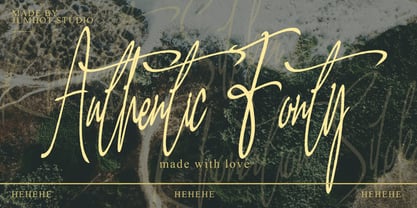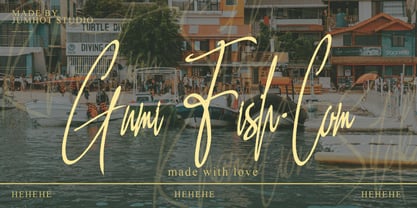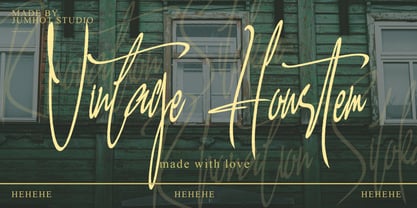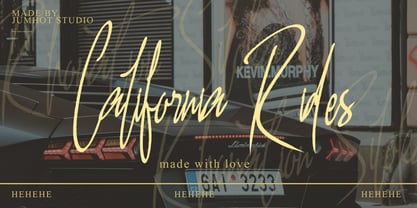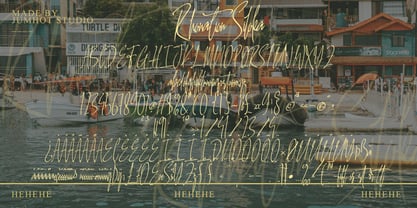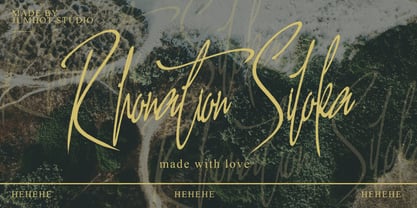
Rhonation Syloka
by Pineungtype misinklab
The Rhonation Syloka Font Family was designed by Beni Saswita and published by Pineungtype misinklab. Rhonation Syloka contains 1 styles. More about this family
Rhonation Syloka is a versatile font that brings a fresh style to various projects, including quotes, logos, blog headers, posters, branding, letters, invitations, and stationery. Experience the dynamic elegance of pointed pen mastery with Rhonation Syloka. This font transcends mere quality, embodying the essence of pointed pen handwriting as a true masterpiece. The flowing lines and timeless grace of each character reflect the precision and artistry inherent in this refined craft, making it an ideal choice for those seeking sophistication and charm in their designs.
Designers: Beni Saswita
Foundry: Pineungtype misinklab